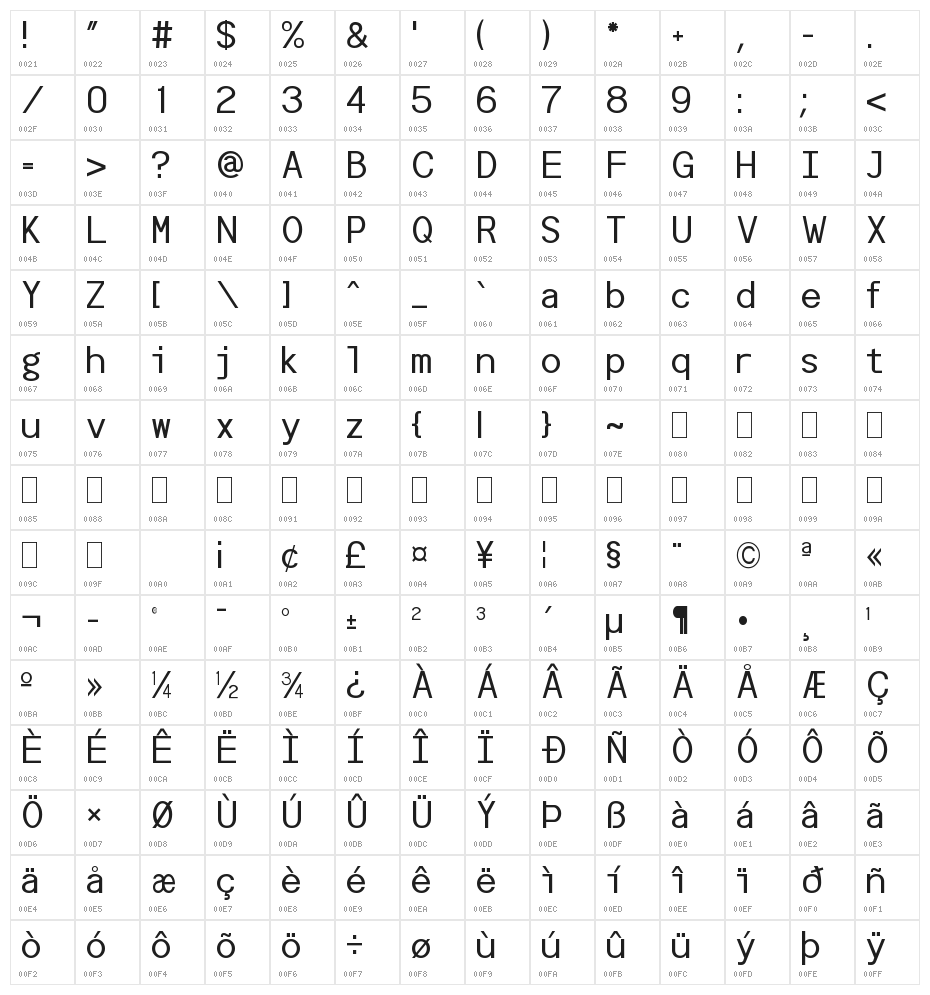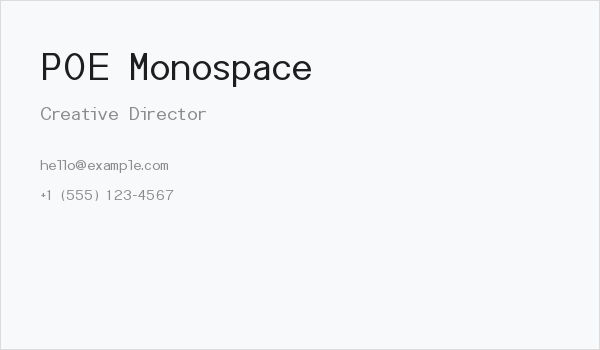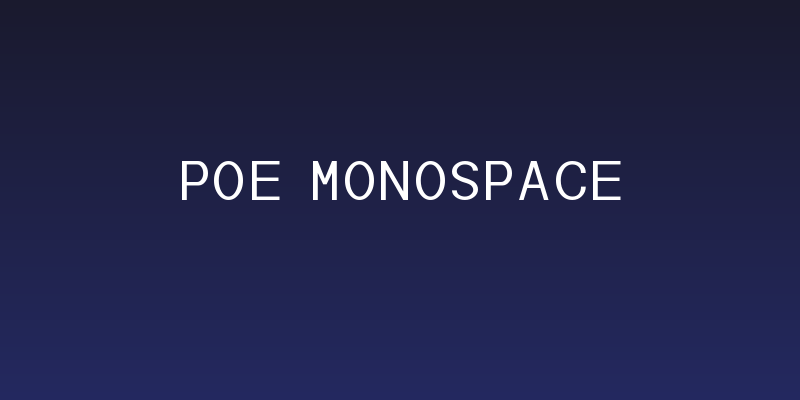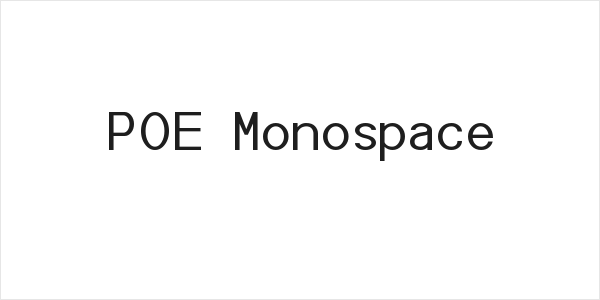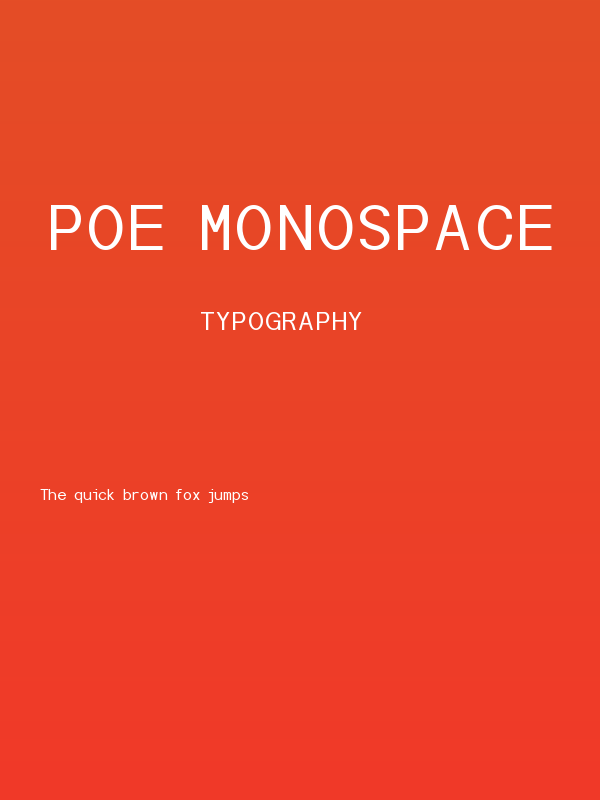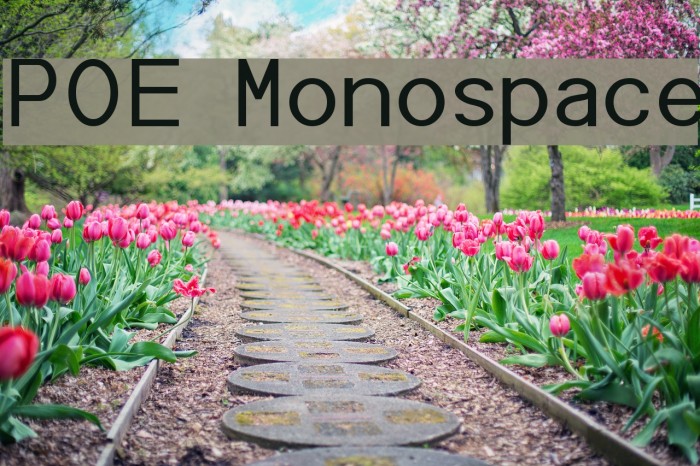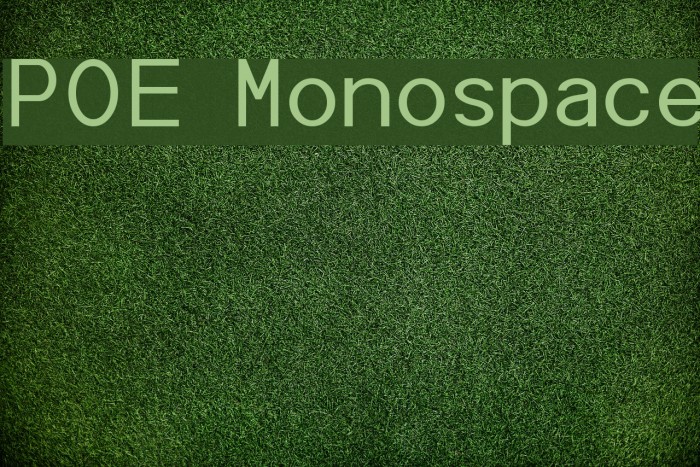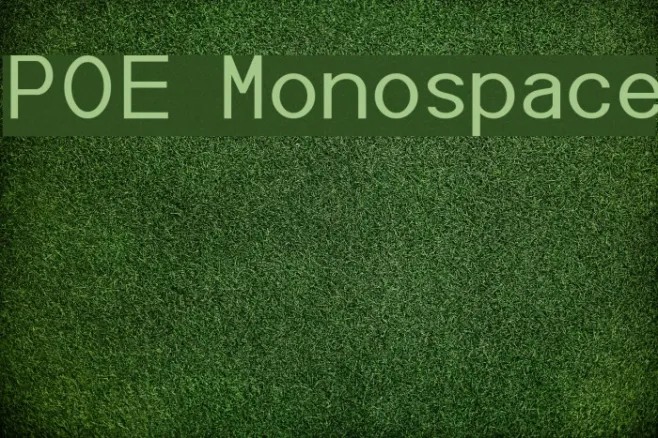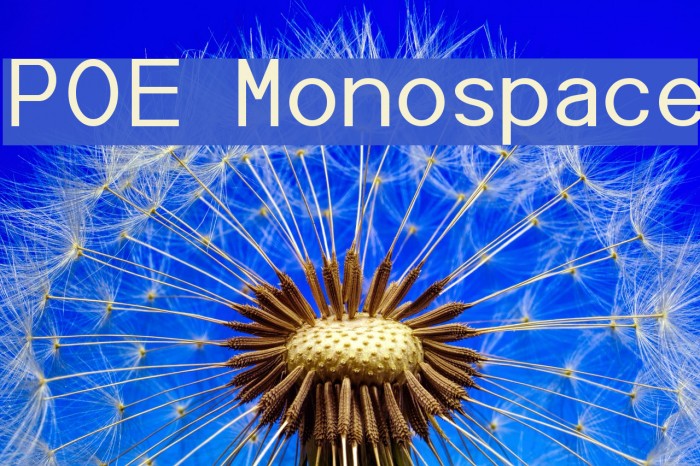
POE Monospace Font
POE Monospace Description
This typeface features a clean and modern design with uniform character width, making it ideal for coding and technical documents. The characters are evenly spaced, providing clarity and readability. The uppercase and lowercase letters are distinct, with a consistent stroke width that enhances legibility. The numerals are straightforward and align perfectly with the text, ensuring a seamless integration in data-heavy contexts. Special characters are clearly defined, maintaining the font's overall simplicity and functionality. Its straightforward design makes it versatile for various digital applications.